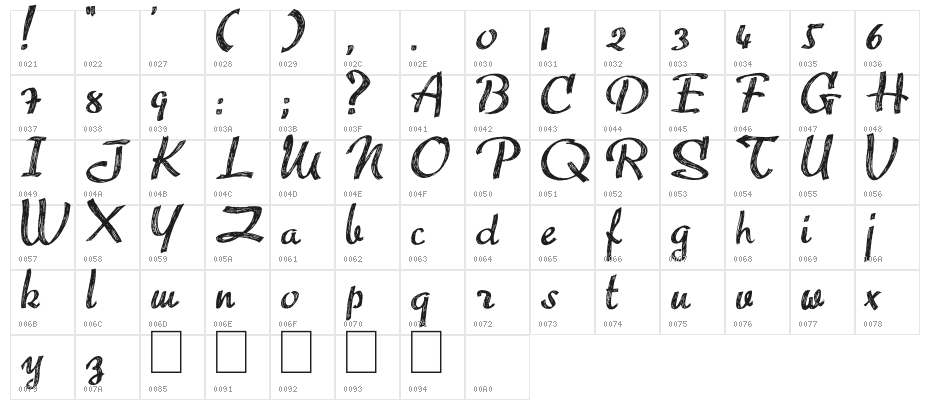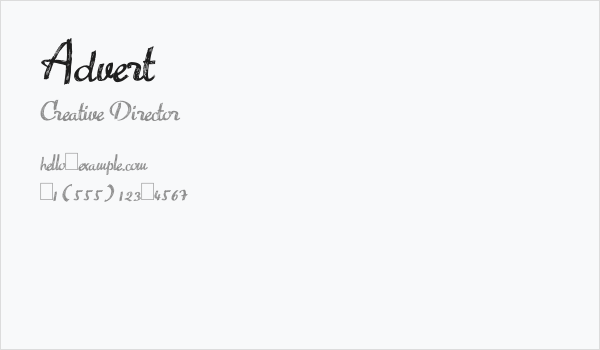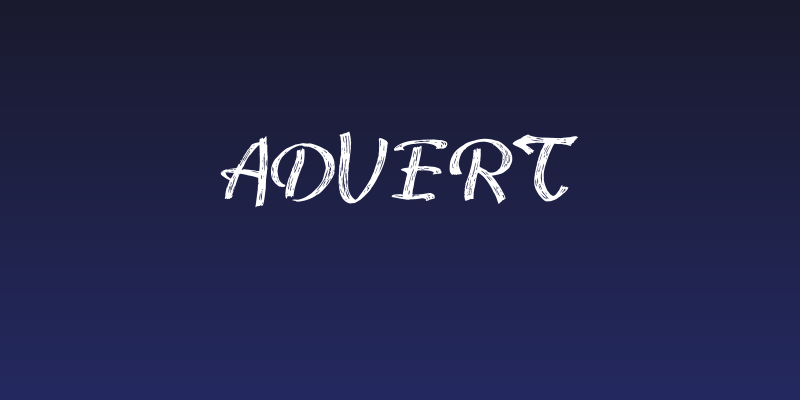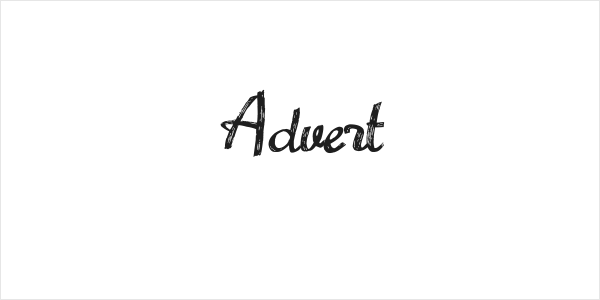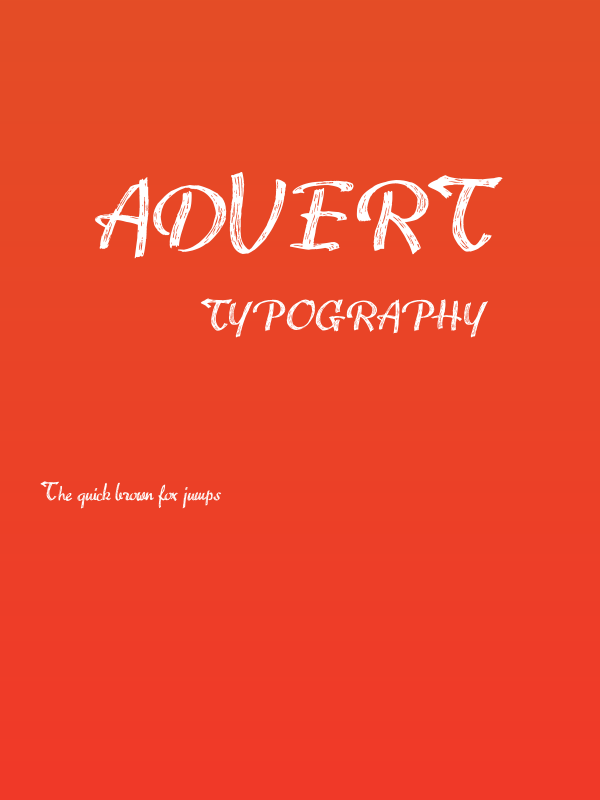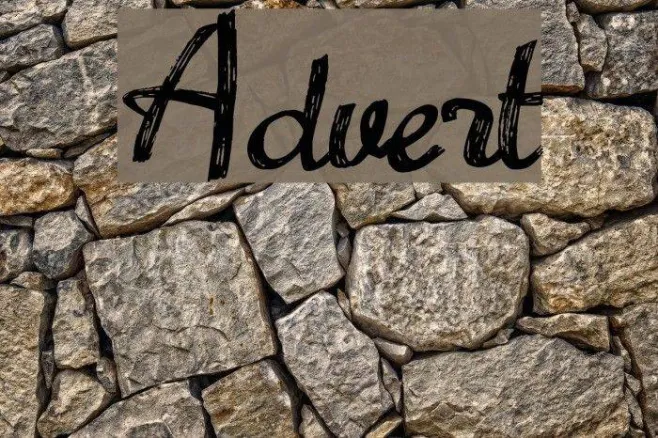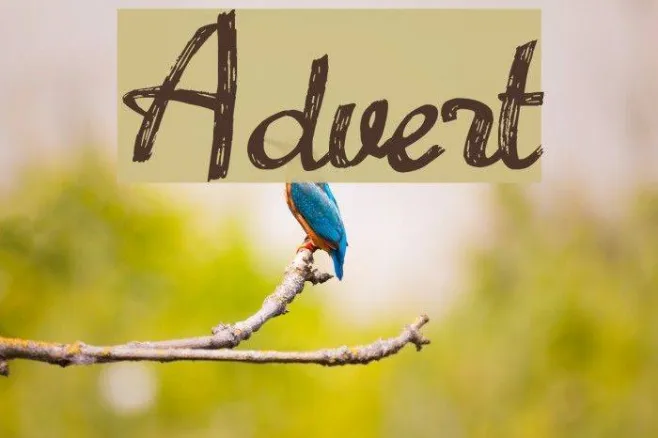
Advert Font
Advert Description
This font features a bold and dynamic handwritten style, characterized by its energetic brush strokes and slightly irregular letterforms. The uppercase and lowercase letters maintain a consistent flow, with each character exhibiting a unique flair that adds to the overall expressive nature of the typeface. The numbers and special characters follow the same stylistic approach, ensuring a cohesive look across all elements. The font's high contrast between thick and thin strokes enhances its dramatic appearance, making it suitable for eye-catching designs.
| Proposed Projects | Ideal for projects that require a personal touch, such as greeting cards, invitations, posters, and branding materials that aim to convey creativity and energy. |